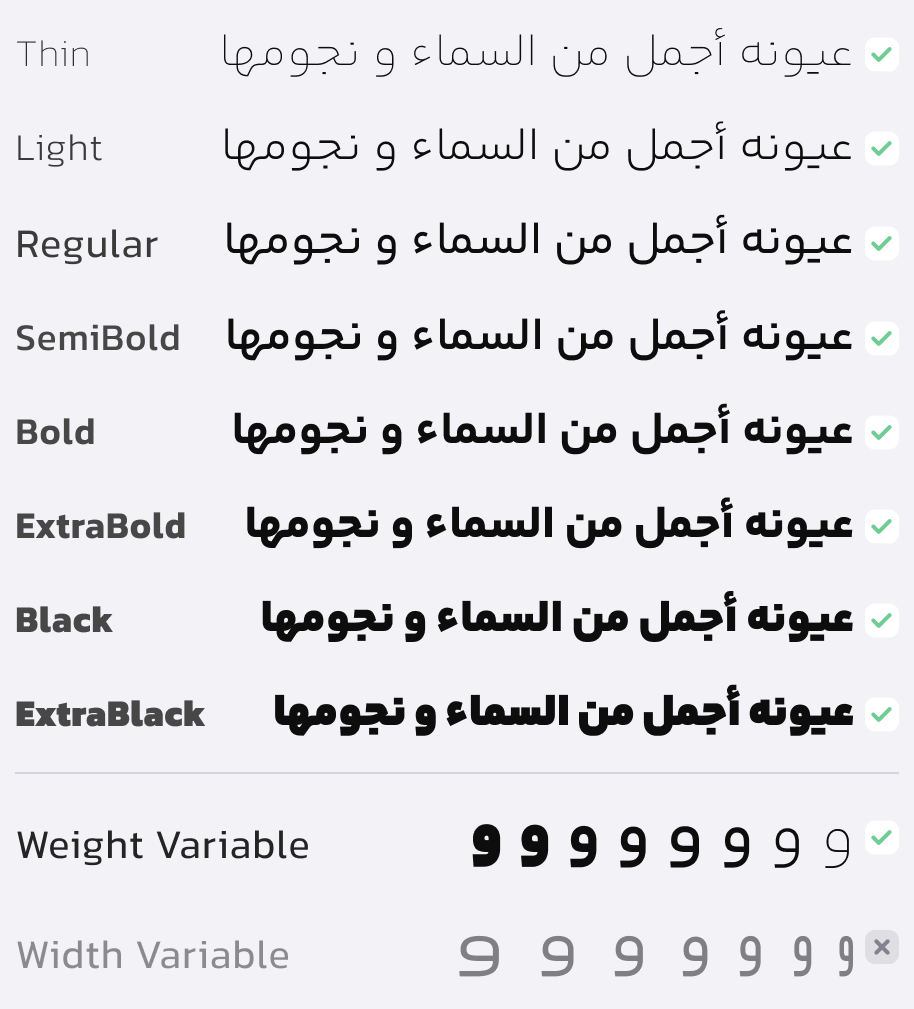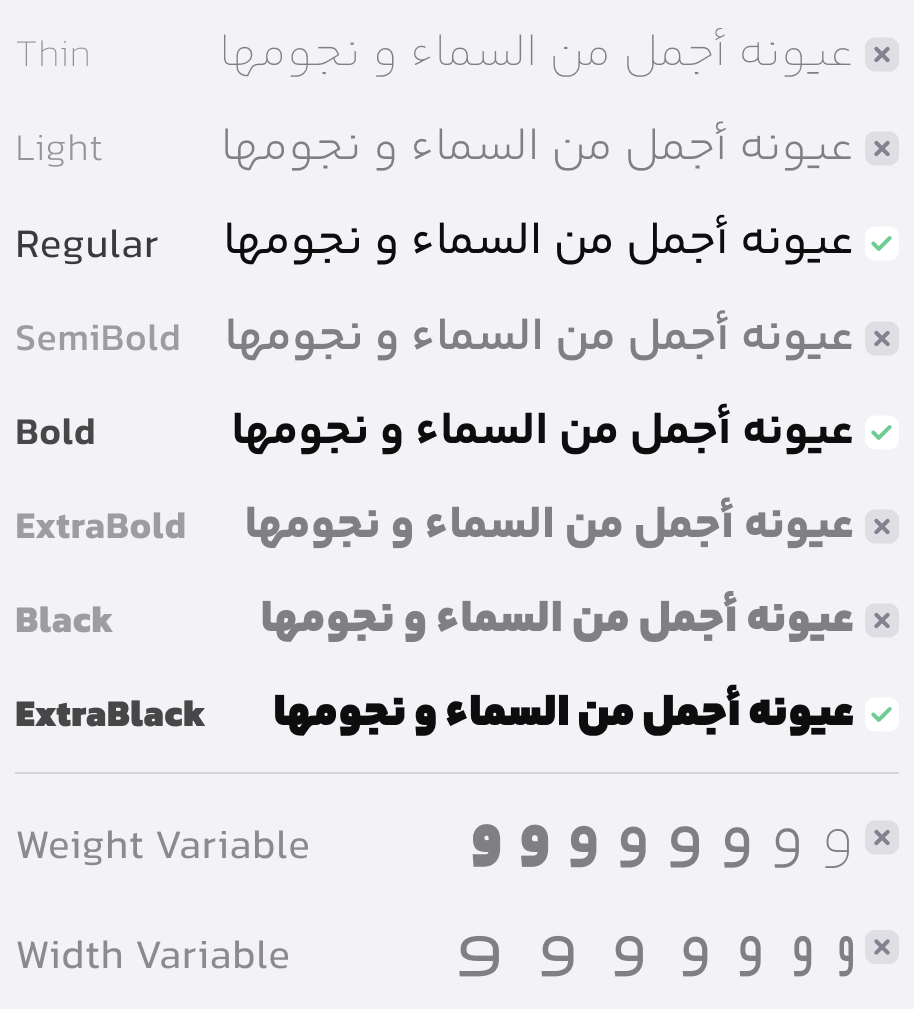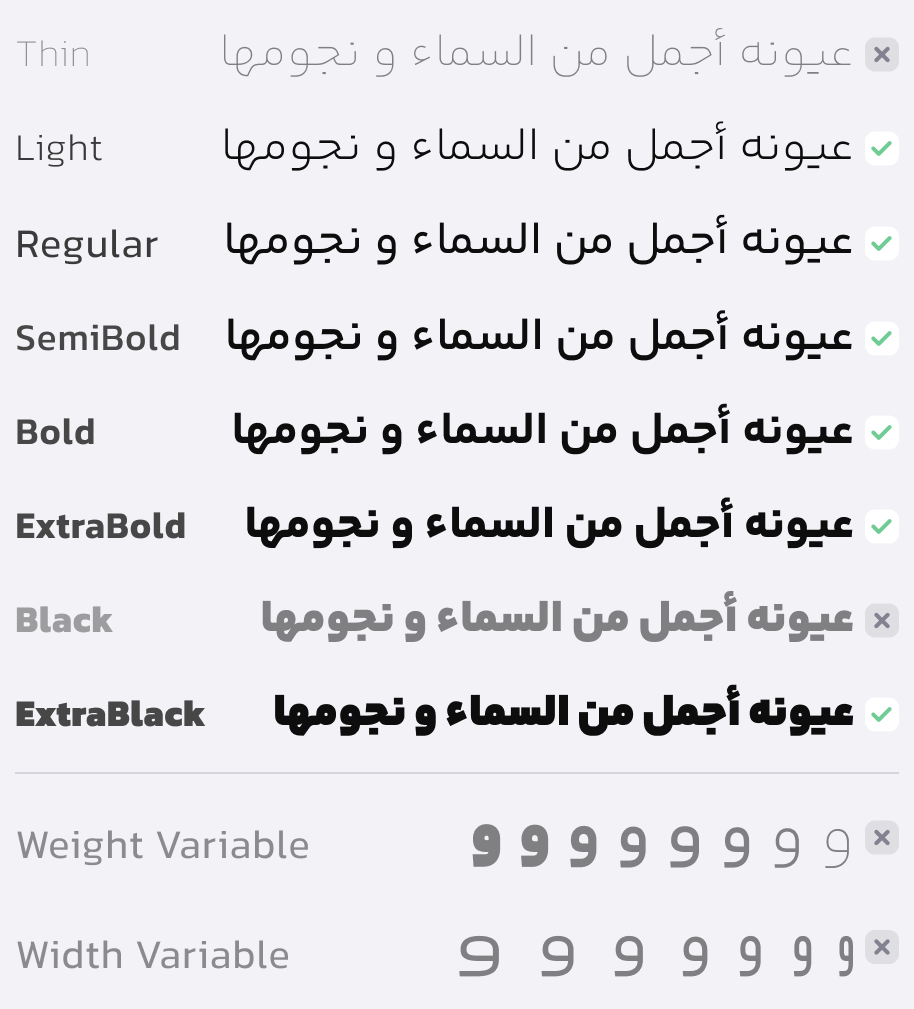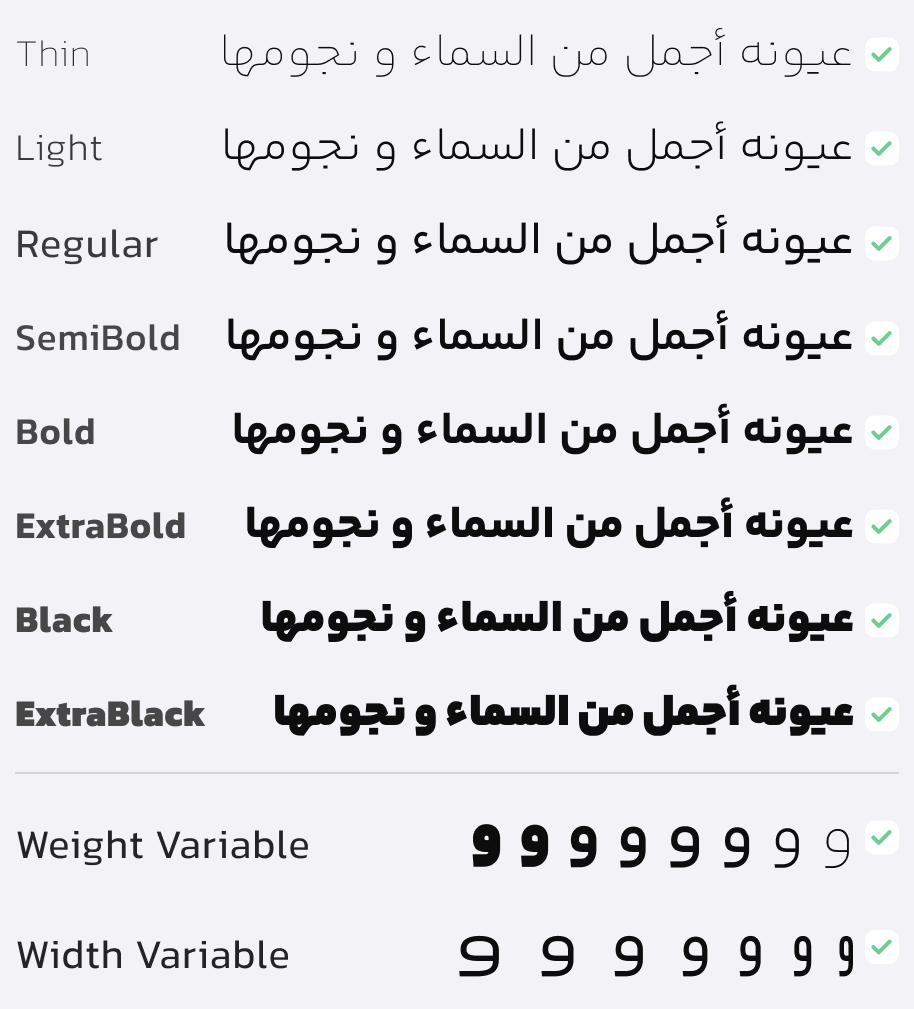
Yekan Bakh
Font Weight Variety
The YekanBakh font features 8 weights (Thin, Light, Regular, SemiBold, Bold, ExtraBold, Black, ExtraBlack) and 7 width levels (ExtraCondensed, SemiCondensed, Normal, SemiExpanded, ExtraExpanded), along with a variable version.
Extensive World Language Coverage
The font now supports 60 languages (19 under Arabic script and 41 under Latin script) and is usable in 95 countries (40 countries with Arabic script, 50 countries + 5 autonomous regions with Latin script).
Ligatures and Alternative Characters
Harmonized Visual Language and Design Pattern for Arabic and English Characters
YekanBakh supports 17 currencies and is usable in 75 countries.
By activating Stylistic Set 6, you can enable the exclusive symbols for Rial and Toman.
By activating Stylistic Set 7, you can adjust the vertical alignment of numbers and currency symbols.
Examples of Various Languages with Latin Script
Examples of Various Languages with Arabic Script
Font Features for Latin Numbers
In the redesign process of the Yekan font, the following actions were taken:
- The font weights were expanded from 2 to 8, and 6 width levels were designed, totaling 56 fonts.
- Exclusive design and completion of characters for 40 languages with Latin script and 20 languages with Arabic script.
- Exclusive design of 17 common currency symbols.
- Design and completion of various punctuation and mathematical symbols.
- Changes were made to harmonize the form, thickness, and size of characters relative to each other.
- Review and adjustment of spacing between joined and separate letters, as well as kerning.
- Overall shape changes for some letters were made, such as: د, ه, ه, ه.
- Design of swashed “ک” and an inverted “ی”.
- New design for the form of dots.
- Review of the form, thickness, and size of diacritics and adjustment of their positions.
- The bowl of ‘ع’ and ‘ح’ was reduced, and the lower baseline was shortened to ensure compatibility with user interface space.
YekanBakh in Use
Variable Font: 2 axes (weight and width).